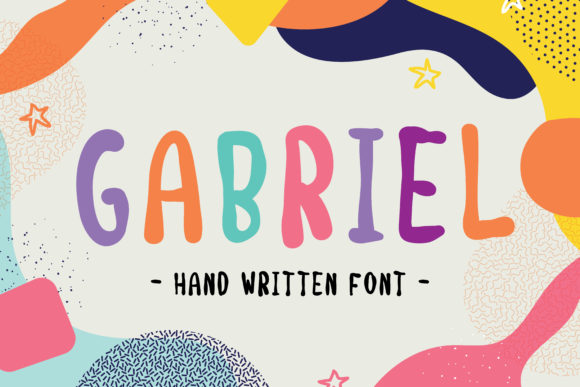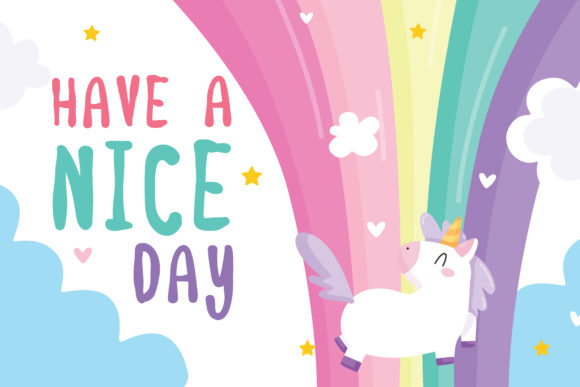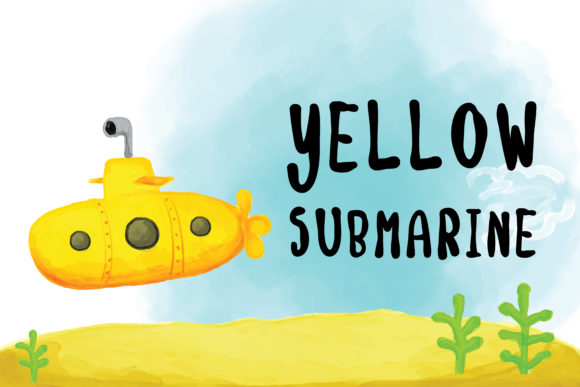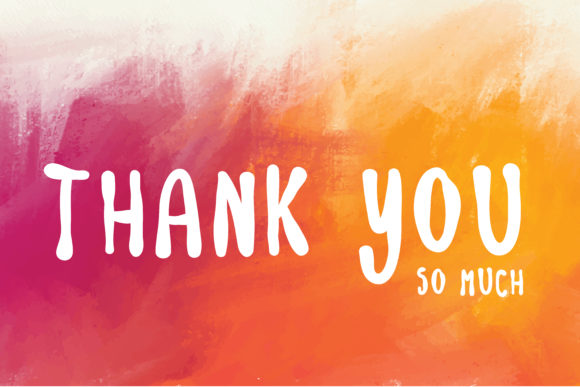
About Gabriel Font
Introducing Gabriel, a cute and quirky handwritten font that exudes charm and playfulness. This font is a true gem, designed to add a touch of creativity and uniqueness to any project. When you incorporate Gabriel into your creative ideas, you’ll notice how it instantly makes them stand out with its delightful and whimsical appearance.
Gabriel’s cute and quirky style creates a sense of fun and lightheartedness. Each letter dances merrily, as if drawn with a cheerful brush. Whether you’re working on social media graphics, invitations, quotes, or any other creative endeavor, Gabriel adds a touch of playfulness that captivates and brings smiles.
The font’s versatility knows no bounds. As you embrace Gabriel, you’ll discover how seamlessly it complements a diverse array of design projects. From branding and logo design to greeting cards, posters, and digital artwork, Gabriel’s charm enhances your creations with its delightful appeal.
Imagine using Gabriel to create heartwarming messages and eye-catching designs. Its cute and quirky handwritten style becomes the perfect canvas for expressing joy and creativity.
For invitations that radiate a whimsical and vibrant aura, Gabriel brings an air of charm and individuality. Whether it’s for a birthday bash, a themed event, or a cheerful celebration, your invites will stand out as one-of-a-kind masterpieces.
In the digital realm, Gabriel adds a touch of playfulness to social media posts and blog graphics. Its unique and handwritten style resonates with viewers, creating a genuine connection and leaving a lasting impression.
Greeting cards become even more special with Gabriel’s adorable touch. Be it birthdays, holidays, or moments of celebration, the font’s cute and quirky script elevates your greetings, making recipients feel truly cherished.
In conclusion, Gabriel is more than just a font; it’s an embodiment of cuteness and creativity. With its quirky handwritten style, Gabriel becomes an invaluable asset for all your design projects. Embrace the charm and playfulness of Gabriel and watch as your creative ideas come alive with a burst of joy and individuality. Let your imagination run free in the cute and quirky embrace of Gabriel, the handwritten font that defines creativity and delight.